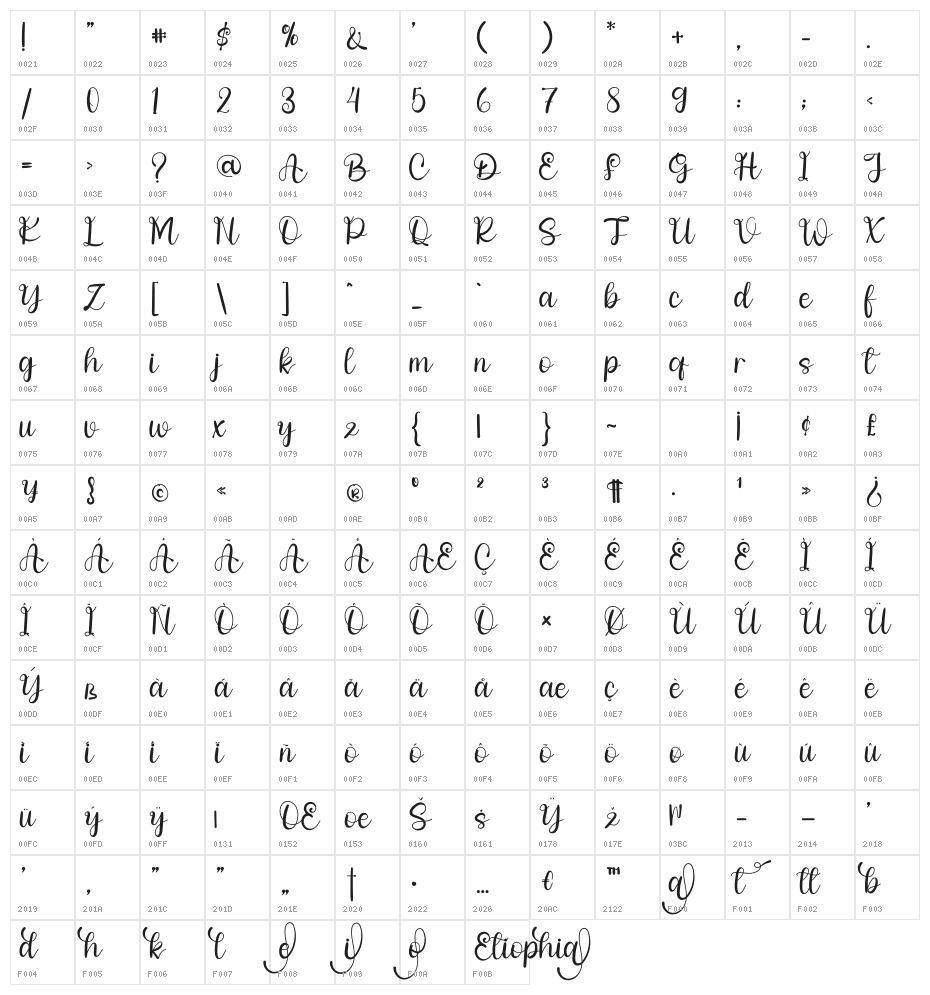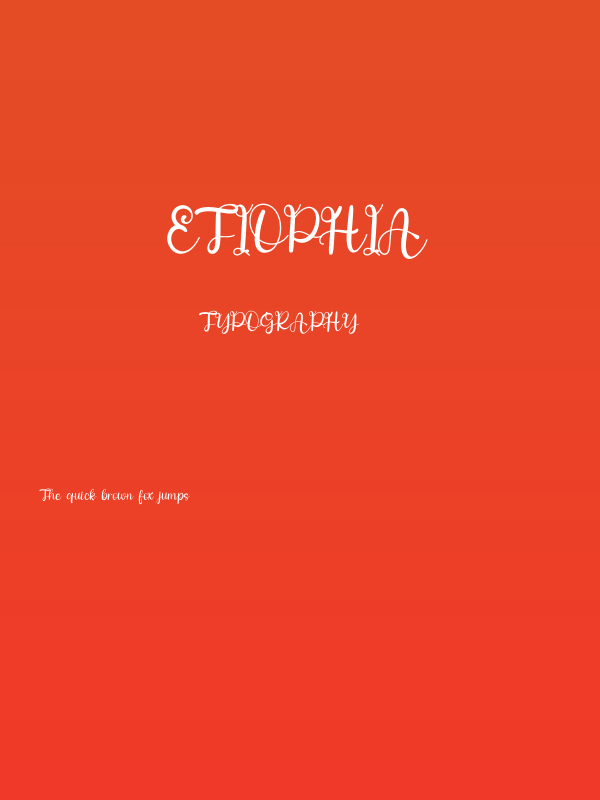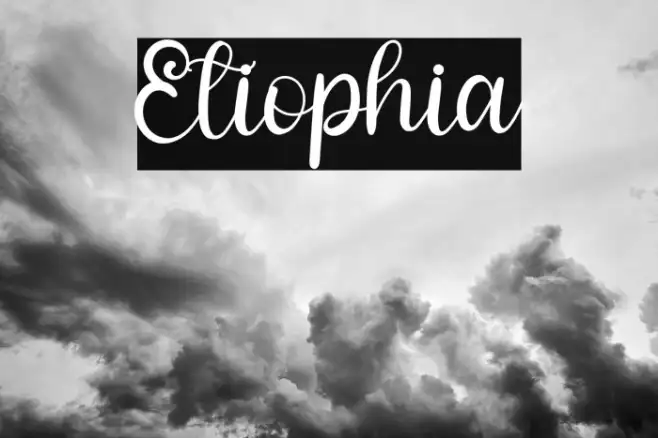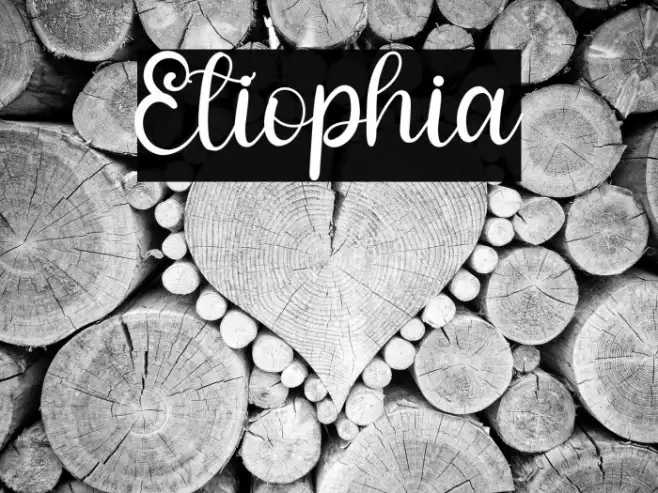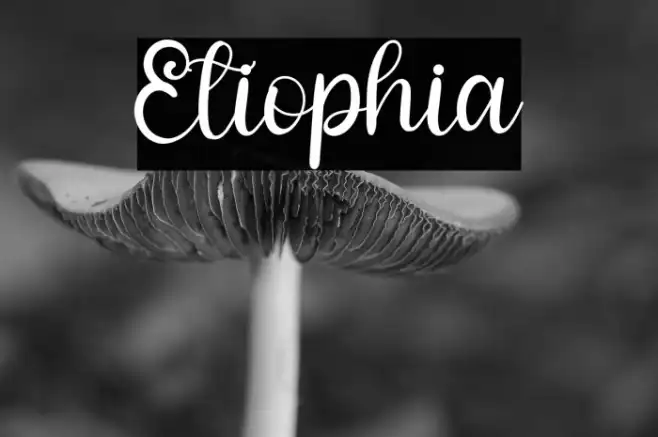
Etiophia Font
Etiophia Description
This font features a playful and elegant script style with fluid, connected strokes that mimic natural handwriting. The uppercase letters are bold and expressive, with distinctive loops and swirls that add a whimsical touch. The lowercase letters maintain a consistent flow, enhancing readability while retaining a stylish flair. Numbers are crafted with the same attention to detail, ensuring they blend seamlessly with the alphabet. Special characters are thoughtfully designed, complementing the overall aesthetic. This font is perfect for projects that require a personal, artistic touch.